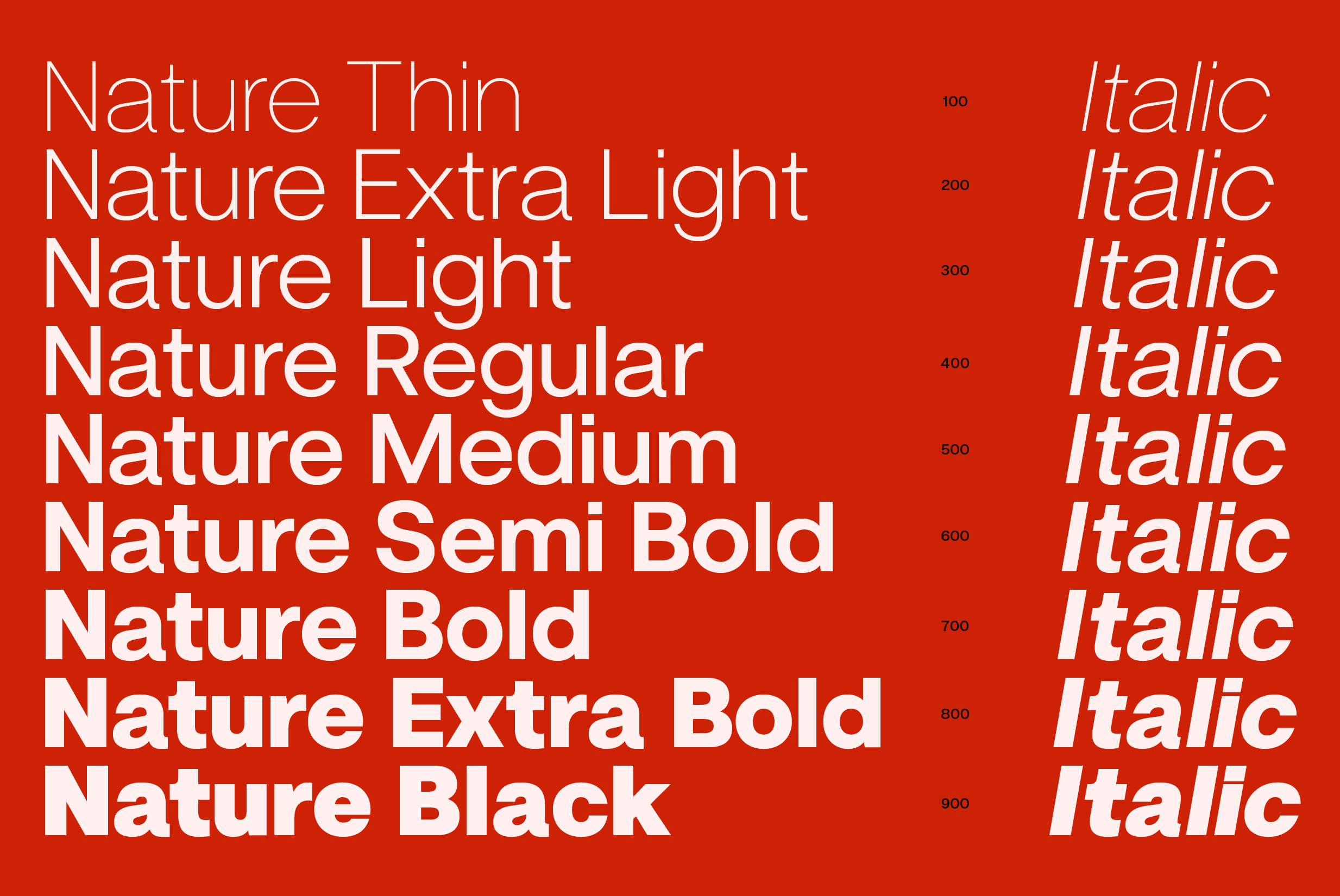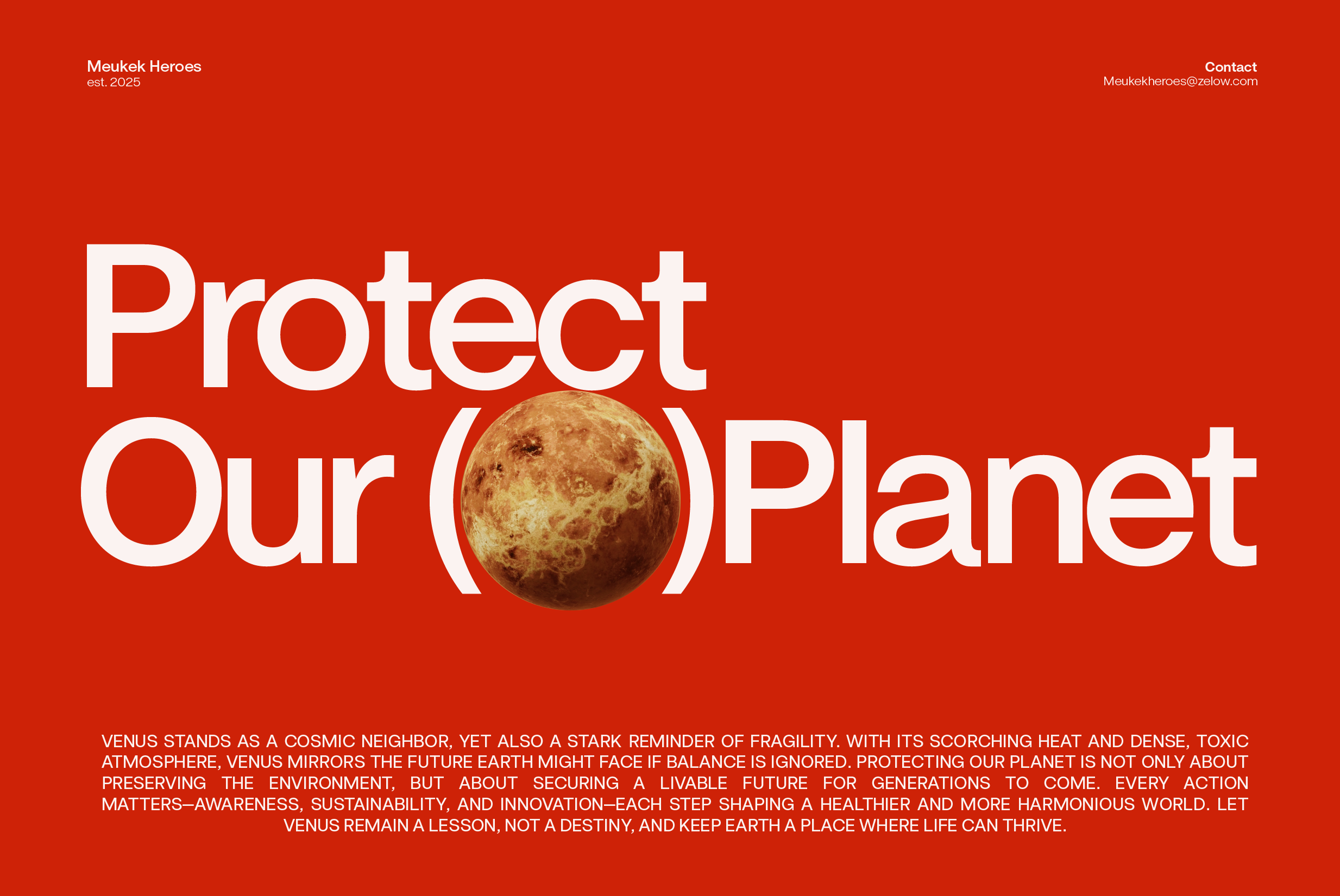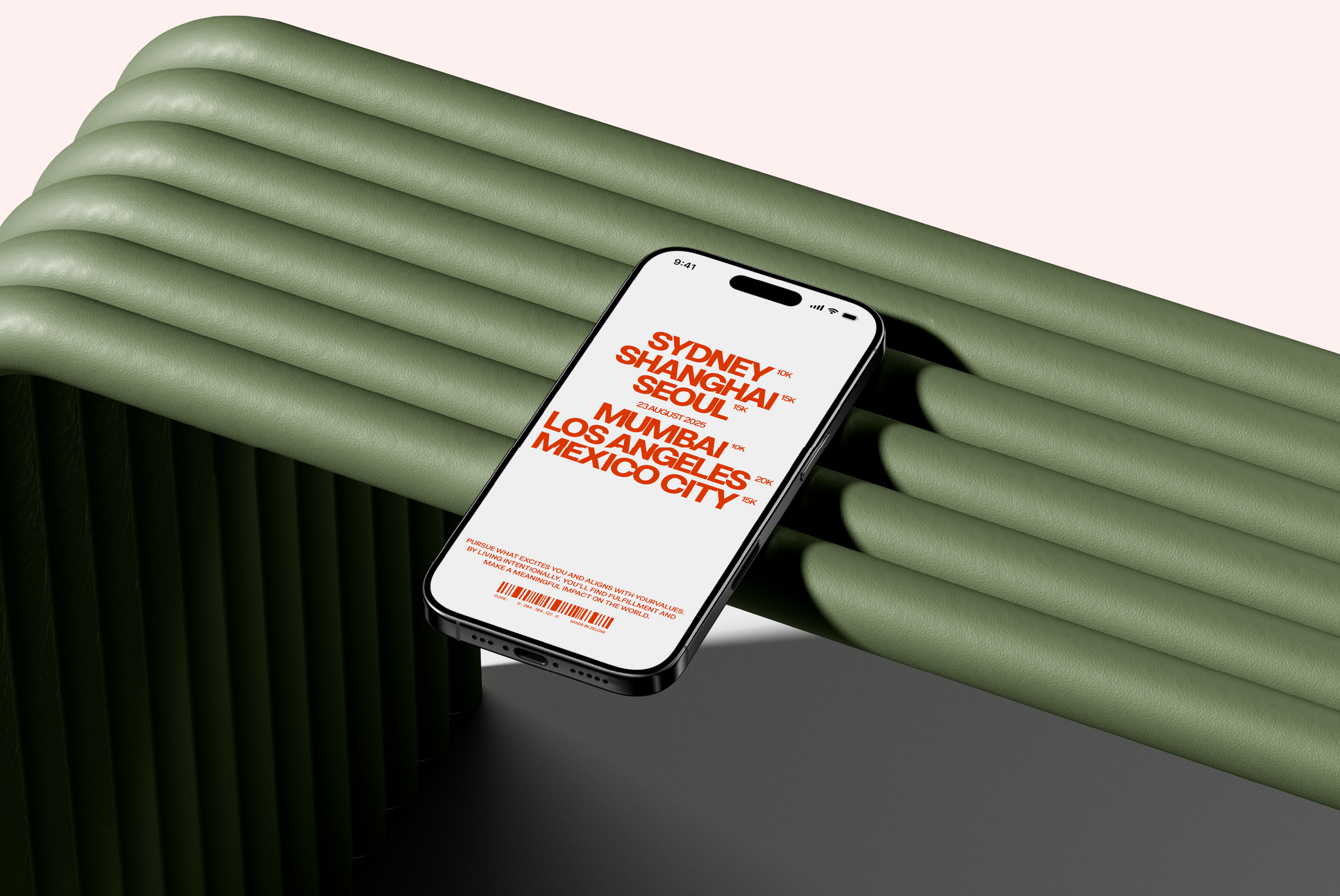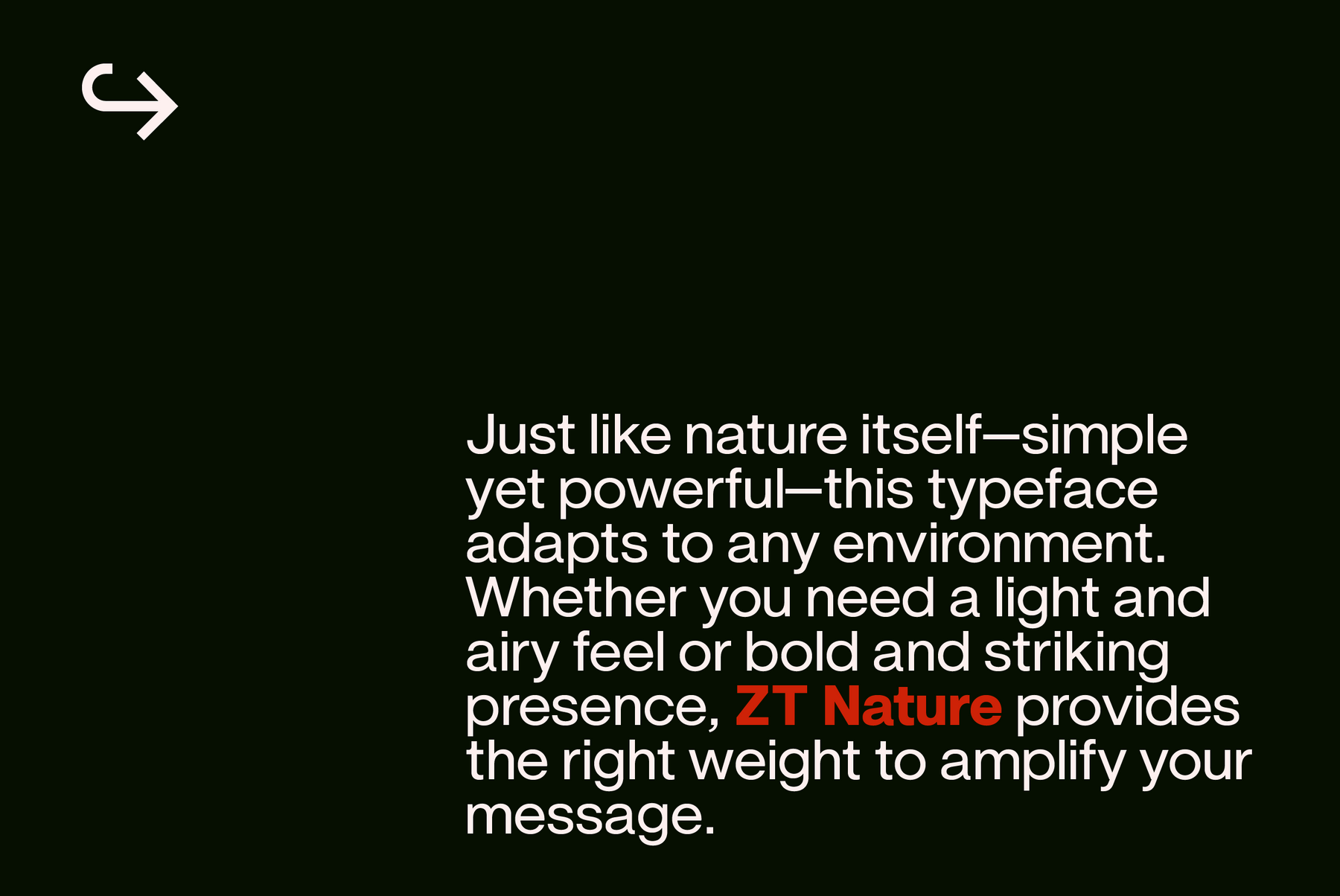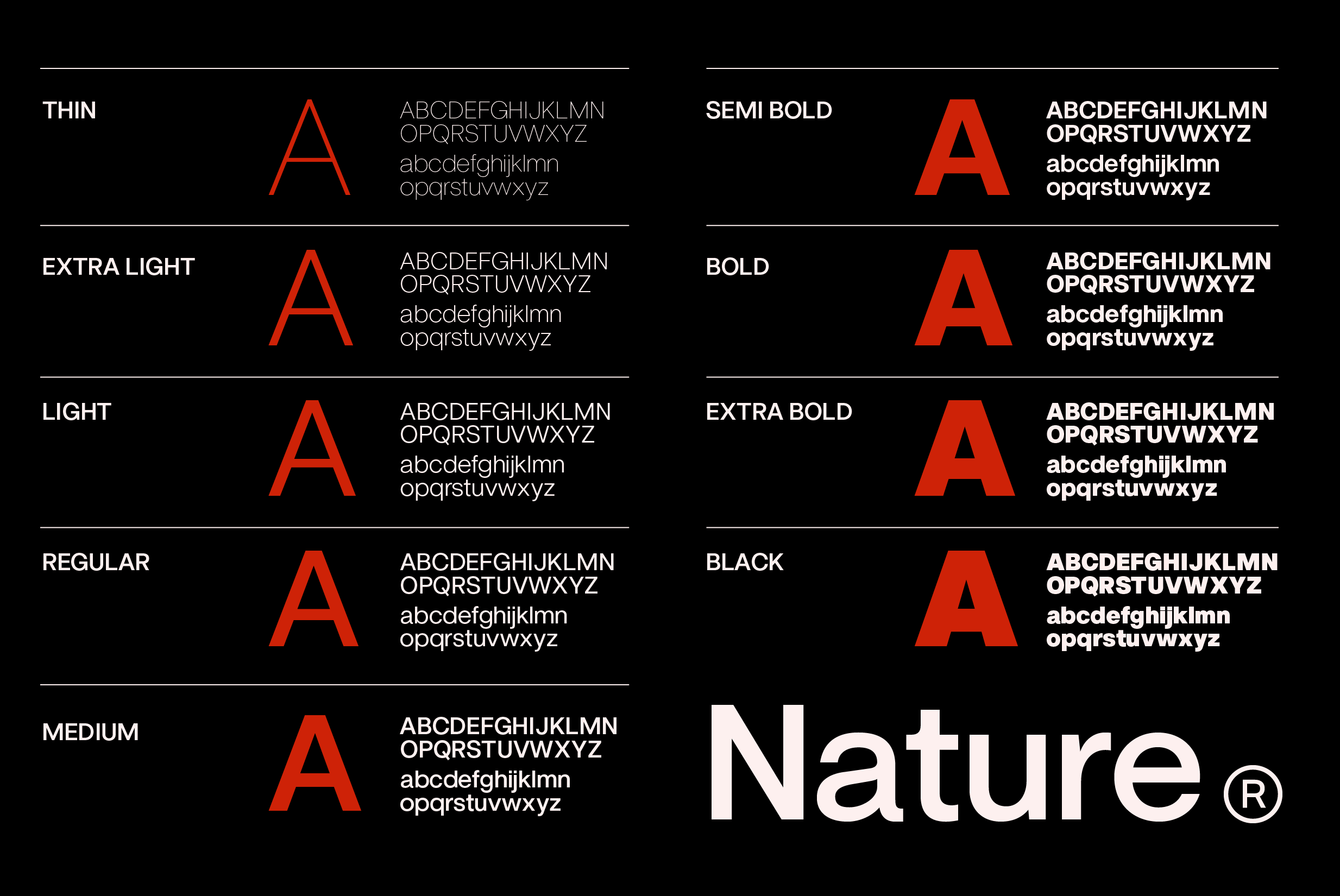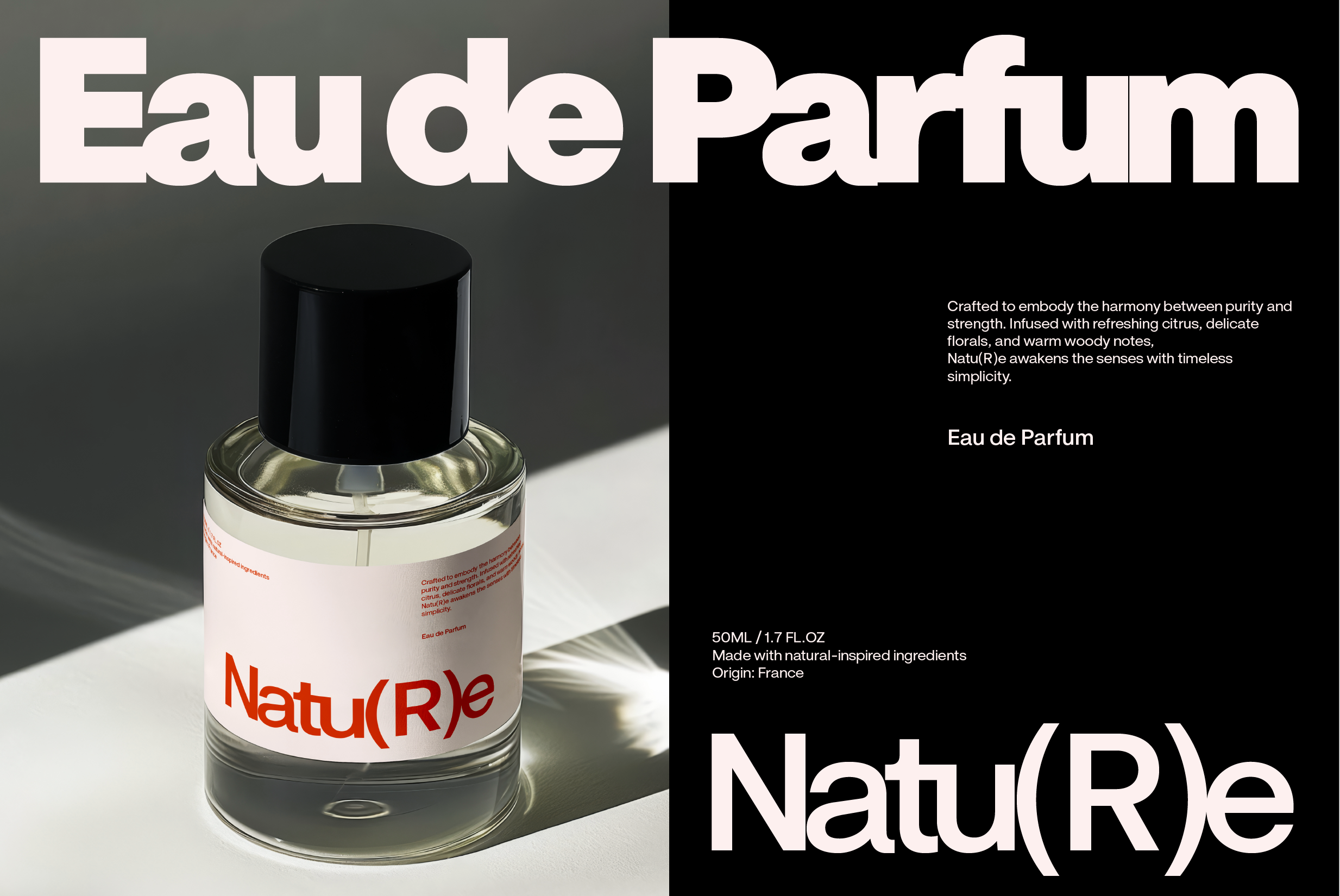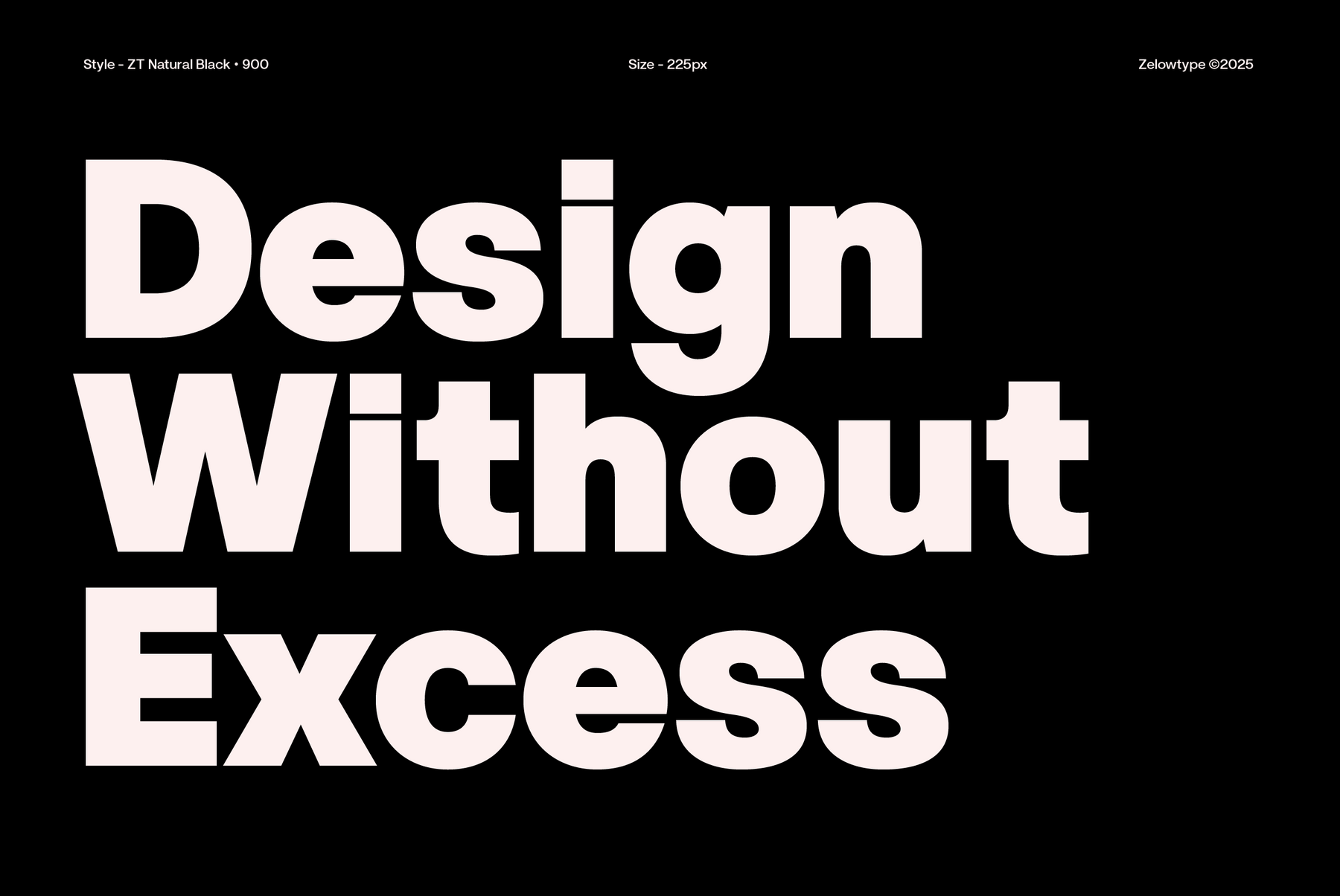
ZT Nature
ZT Nature created by zelowtype is a modern sans serif that combines geometric precision with an organic sense of rhythm.
Developed to function across both print and digital environments, it offers clarity, neutrality, and adaptability without losing its unique character. Designed for designers who value consistency and flexibility, ZT Nature serves as a reliable typographic tool for contemporary communication.
With 18 styles ranging from Thin to Black and 2 variable axes, the family provides complete control over weight and width. This makes it suitable for everything from branding systems and editorial layouts to user interfaces and digital products. Its structure is rooted in rational forms, yet softened with natural curves that enhance legibility and warmth.
The typeface contains 544 glyphs, supporting extended Latin languages, symbols, and typographic features essential for professional use. It has been carefully engineered to maintain optical balance across all weights, ensuring that ZT Nature performs equally well in large-scale displays and dense text settings.
ZT Nature is more than a font—it’s a framework for modern typography, designed to be timeless, versatile, and consistently dependable.and again.